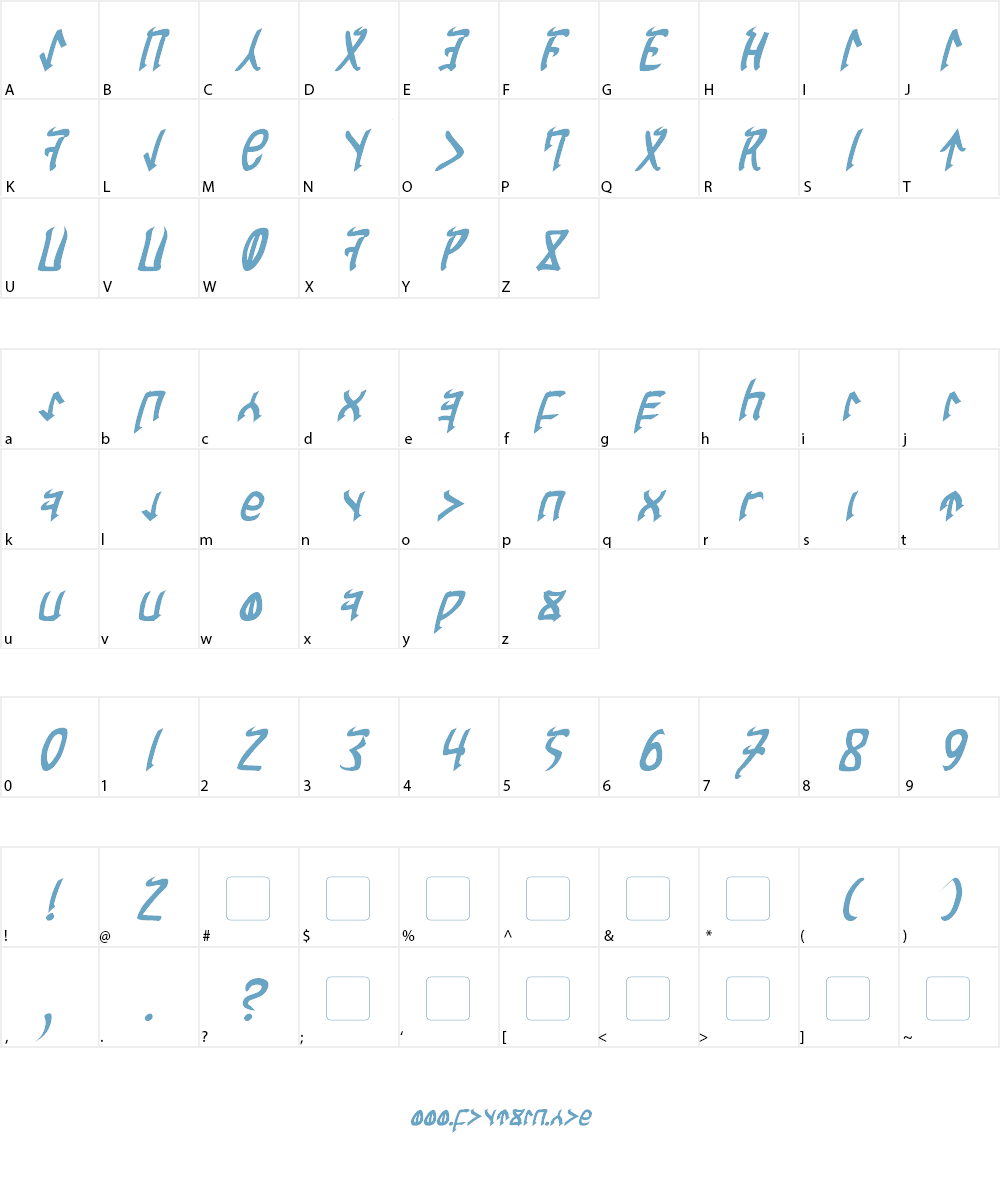
Cardosan is a lightly-swirled runic-script font, custom-made for a Neo-Exodus campaign (from LPJ Publishing) and is based on a combination of ancient Turkish and Gothic runes. Includes regular, bold, italic, and bold-italic weights.